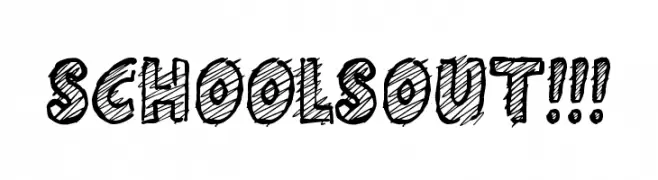
A cursive, elegant font with a handwritten style.
A bold, brush-textured font with expressive uppercase and lowercase letters.
A lively and dynamic handwritten font with fluid strokes and playful tilt.
A bold, sketch-like font with a playful and dynamic style.
A decorative and artistic font with intricate swirls and curls.
A bold, jagged, hand-drawn font with a graffiti-like style.
A playful decorative font made of diverse heart shapes.
A decorative font with characters as cracked heart shapes, ideal for emotional themes.
A decorative font combining hearts and stars with classic serif numbers.
A bold, sketch-like font with a hand-drawn, textured appearance.
A playful, hand-drawn font with romantic doodles and heart motifs.
A playful, decorative font with heart motifs and bold, whimsical characters.
A bold, tribal-inspired font with sharp, angular strokes and intricate curves.
An elegant, artistic script font with dynamic, flowing strokes and ornate uppercase letters.
A bold, brush-style font with an expressive, hand-drawn appearance.
A festive, decorative font with holly leaf accents and angular strokes, perfect for holiday themes.
An ornate, decorative script font with feather-like embellishments.
A bold, brush-style font with an energetic and dynamic appearance.
A bold, textured, hand-drawn font with a playful, three-dimensional appearance.
A bold, brush-style font with dynamic, handcrafted strokes.
A bold, jagged font ideal for horror-themed designs.
A whimsical and playful font with bold, swirling characters.
An elegant script font with flowing, interconnected characters and bold uppercase letters.
Casual handwritten script with energetic, connected strokes.
A bold, hand-drawn font with rough, energetic strokes.
A whimsical, decorative font with playful swirls and heart motifs.
A bold, expressive brush-style font with dynamic, hand-painted strokes.
A bold, spiky, ink-splattered decorative font with a raw, expressive style.